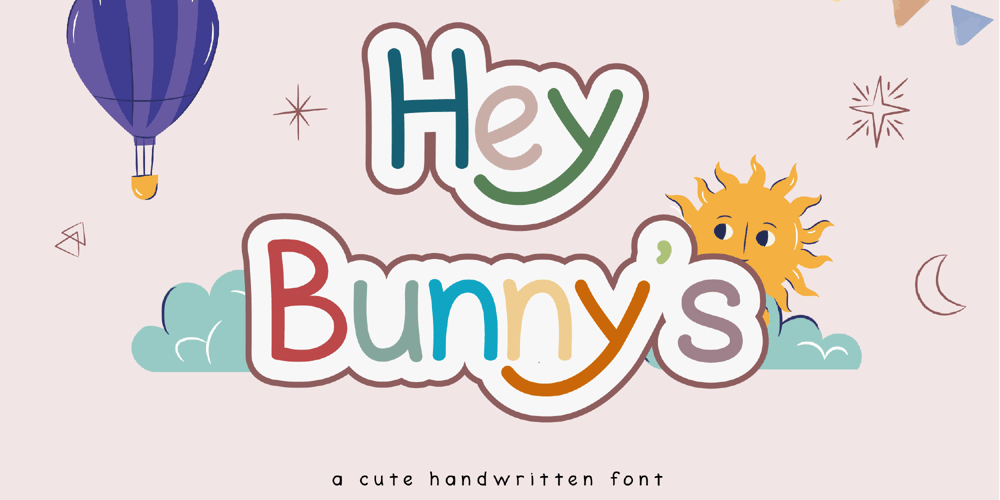
Hey Bunnys Font Family was designed by Achmad Yani and published by Flawlessandco. Hey Bunnys contains 1 styles and family package options. Introducing “Hey Bunny’s” – a charming and adorable handwritten font! With its lovable and cute style, this font is perfect for adding a sprinkle of charm to various design projects.An Original typeface that suitable for any graphic designs such as branding materials, t-shirt, print, business cards, logo, poster, t-shirt, photography, quotes .etcThis font support for some multilingual. Modern Sweet Retro that contains uppercase A-Z and lowercase a-z, alternate character, numbers 0-9, and some punctuation.If you need help, just write me! Thanks so much for checking out my shop!